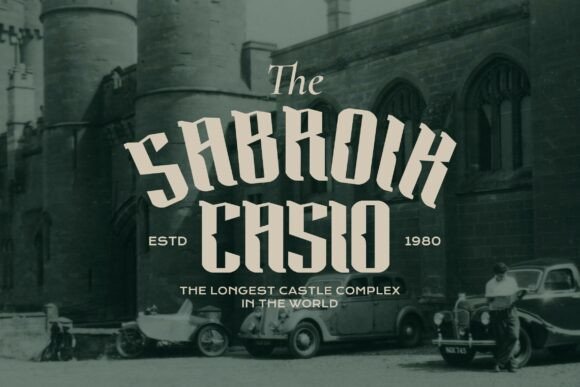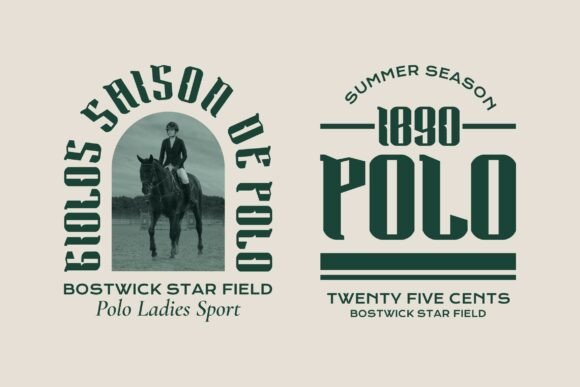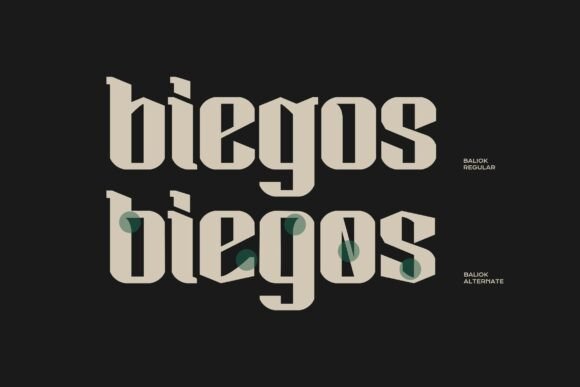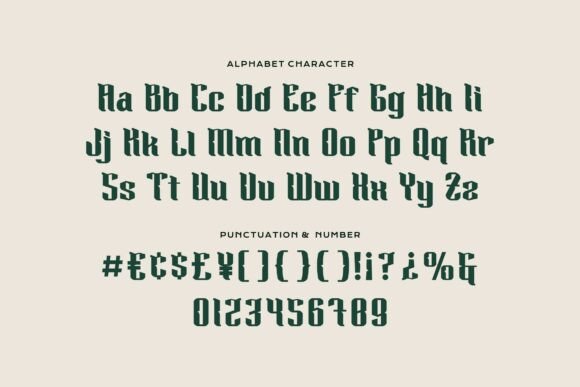
Introducing Baliok Font: A Charismatic Retro Western Typeface
In the world of typography, few fonts manage to evoke a sense of nostalgia and timelessness. However, Baliok Font is an exception. This charismatic and stylish retro western typeface has been making waves in the design community, and for good reason. Defined by its strong, condensed letterforms and nostalgic charm, Baliok is the perfect choice for designers looking to create a truly memorable statement.
A Bold and Timeless Design
Baliok’s bold character is reminiscent of an era of masterful craftsmanship and timeless design. Its condensed letterforms give it a sense of strength and solidity, making it ideal for powerful headlines, striking logos, and eye-catching posters. Whether you’re designing for a sports team with a storied legacy or crafting a vintage-themed project, Baliok effortlessly blends a classic Western aesthetic with a modern twist.
One of the standout features of Baliok font is its versatility. It’s perfect for a wide range of design applications, including apparel design, heritage branding, and packaging. The font’s bold and authentic edge makes it an excellent choice for designers looking to create a lasting impression. Whether you’re working on a branding project, a marketing campaign, or simply want to add a touch of nostalgia to your design, Baliok is the perfect choice.
PUA-Encoded for Effortless Design
Baliok font is PUA-encoded, allowing effortless access to all glyphs, swashes, and alternate characters. This means that designers can easily access a wide range of design elements, making it simple to customize and adapt the font to suit their needs. With Baliok, you can add a touch of elegance and sophistication to your design, or go bold and playful – the choice is yours.
Key Features of Baliok Font
- Charismatic and stylish retro western typeface: Baliok’s unique blend of classic and modern elements makes it a standout in the world of typography.
- Strong, condensed letterforms: The font’s bold character gives it a sense of strength and solidity, making it perfect for powerful headlines and striking logos.
- Nostalgic charm: Baliok’s timeless design evokes an era of masterful craftsmanship and nostalgia, making it ideal for vintage-themed projects.
- PUA-encoded: Effortlessly access all glyphs, swashes, and alternate characters to customize and adapt the font to suit your needs.
- Versatile: Perfect for a wide range of design applications, including apparel design, heritage branding, packaging, and more.
Design Inspiration with Baliok Font
Baliok font is perfect for designers looking to add a touch of nostalgia and timelessness to their work. Here are a few design ideas to get you started:
- Vintage-themed posters: Use Baliok to create eye-catching posters that evoke a sense of nostalgia and timelessness.
- Heritage branding: Perfect for rebranding or re-designing a classic brand, Baliok’s bold character and nostalgic charm make it an excellent choice.
- Apparel design: Add a touch of elegance and sophistication to your apparel designs with Baliok’s unique blend of classic and modern elements.
- Packaging design: Use Baliok to create eye-catching packaging that stands out on store shelves.
In conclusion, Baliok font is a charismatic and stylish retro western typeface that’s perfect for designers looking to create a truly memorable statement. With its strong, condensed letterforms, nostalgic charm, and PUA-encoded design, Baliok is the perfect choice for a wide range of design applications. Whether you’re working on a vintage-themed project, heritage branding, or simply want to add a touch of elegance and sophistication to your design, Baliok font is an excellent choice. So why wait? Download Baliok font today and start creating stunning designs that evoke a sense of nostalgia and timelessness.